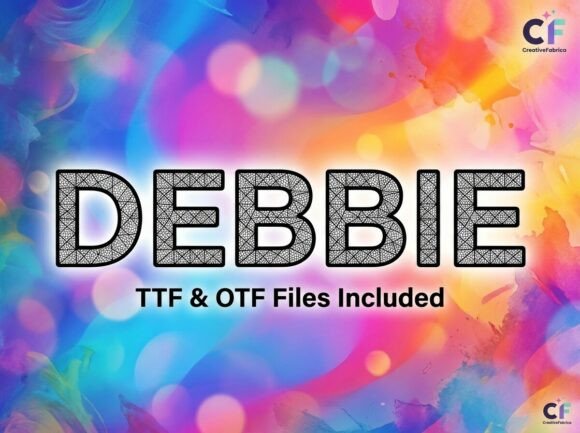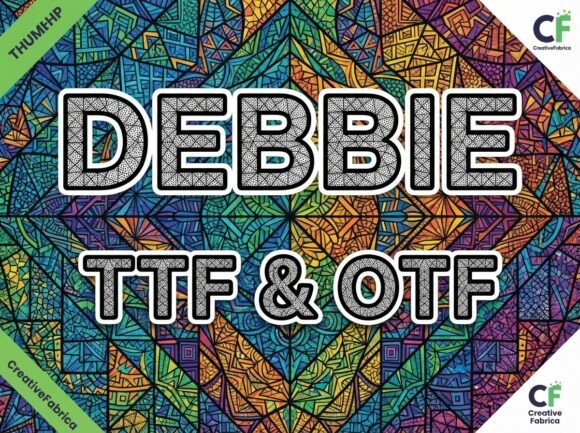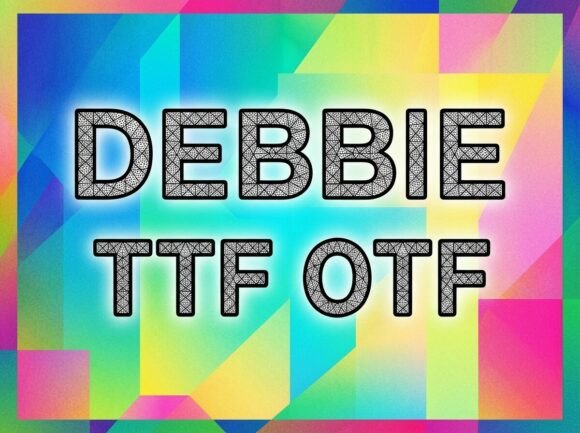
Introducing Debbie Font: Elevate Your Creative Vision with Bold Display Typography
In the realm of typography, few fonts manage to strike a balance between modernity and artisanal flair. Debbie Font is one such exceptional typeface that seamlessly merges clean geometry with intricate details, making it an ideal choice for designers and crafters seeking to add a layer of sophistication to their creative projects.
The Unique Characteristics of Debbie Font
Debbie Font is a bold display font that boasts sturdy, sans-serif letterforms meticulously filled with a microscopic “cracked-ice” or geometric lattice pattern. This distinctive feature gives the font a “high-tech-mosaic” soul, setting it apart from more conventional typefaces. The result is a visually striking typography that exudes professionalism and authority.
Design Features and Applications
Debbie Font’s design features make it an incredibly versatile choice for various creative applications. Its authoritative weight and professional clarity render it perfect for:
- Modern Architectural Branding: Debbie Font’s bold and geometric design makes it an excellent fit for architectural branding, where clarity and modernity are paramount.
- Independent Tech-Startup Logos: The font’s high-tech aesthetic and mosaic pattern evoke a sense of innovation and forward-thinking, ideal for tech-startup logos.
- Innovative Textile Design Headers: Debbie Font’s unique blend of geometry and artisanal detail can add an extra layer of visual interest to textile design headers.
- Striking “Digital-Abstract” Social Media Graphics: The font’s bold and intricate design makes it well-suited for creating eye-catching social media graphics that demand attention.
Why Choose Debbie Font?
Debbie Font offers several advantages that make it an attractive choice for designers and crafters:
- Unique Visual Identity: Debbie Font’s distinctive design ensures that your creative projects stand out from the crowd.
- Versatility: The font’s adaptability makes it suitable for a wide range of applications, from branding and advertising to textile design and social media graphics.
- Professionalism: Debbie Font’s clean lines, geometric pattern, and authoritative weight convey a sense of professionalism and expertise.
Tips for Using Debbie Font Effectively
To maximize the impact of Debbie Font, consider the following tips:
- Use it as a Display Font: Debbie Font is designed to make a statement, so use it as a display font to draw attention to key messages or headings.
- Experiment with Color: The font’s geometric lattice pattern lends itself well to creative color schemes and gradients.
- Pair it with Complementary Fonts: Combine Debbie Font with complementary fonts to create visual interest and hierarchy in your designs.
Debbie Font is a bold and versatile typeface that can elevate your creative vision with its unique blend of clean geometry and artisanal detail. Whether you’re a designer, crafter, or entrepreneur, this exceptional font is sure to make a lasting impression. With its authoritative weight, professional clarity, and high-tech aesthetic, Debbie Font is the premier choice for anyone seeking to add a layer of intricate complexity to their creative projects.